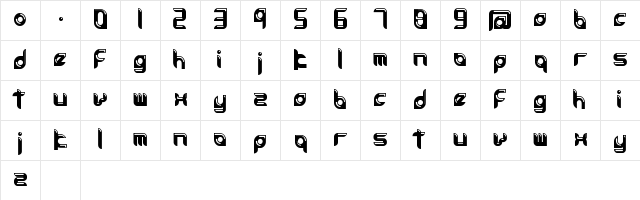
accessories soft Regular
Complete accessories soft Regular glyph index. Displaying only characters natively supported by accessories soft Regular font.
Design Context for accessories soft
accessories soft is a composed and adaptable typeface that performs quietly and consistently across a wide range of design contexts.